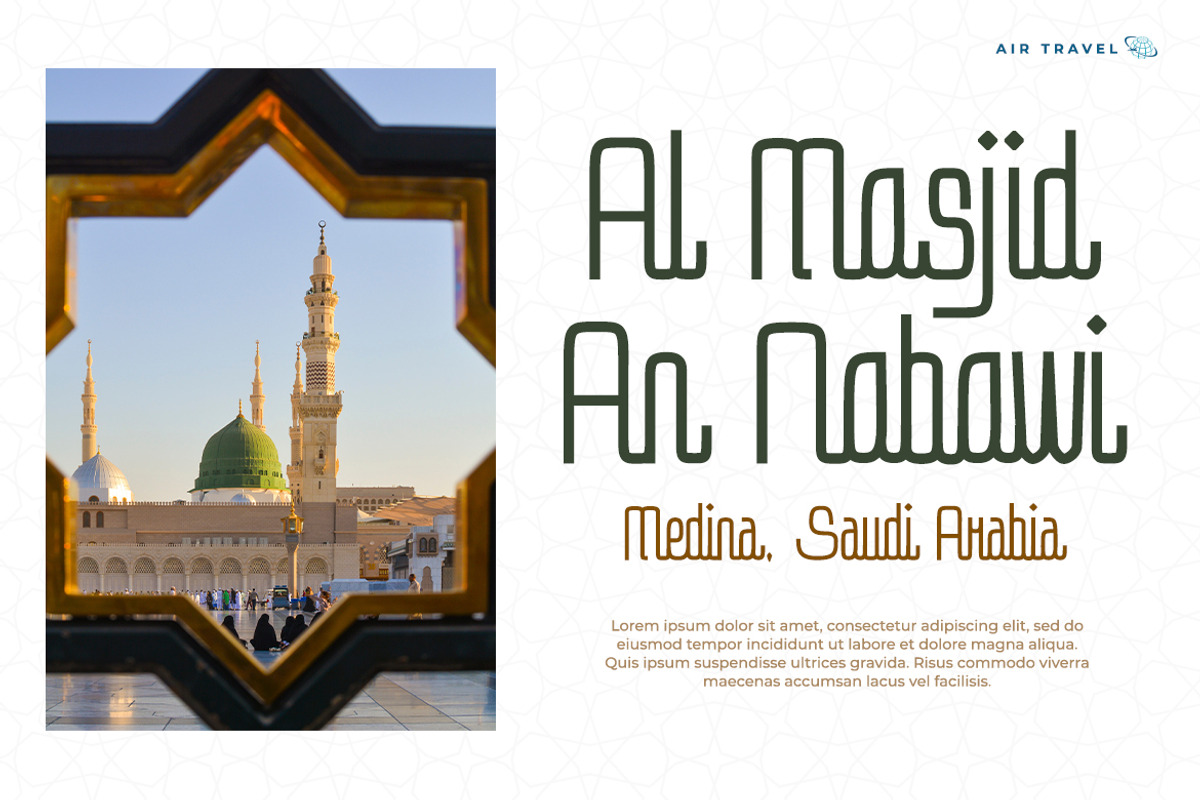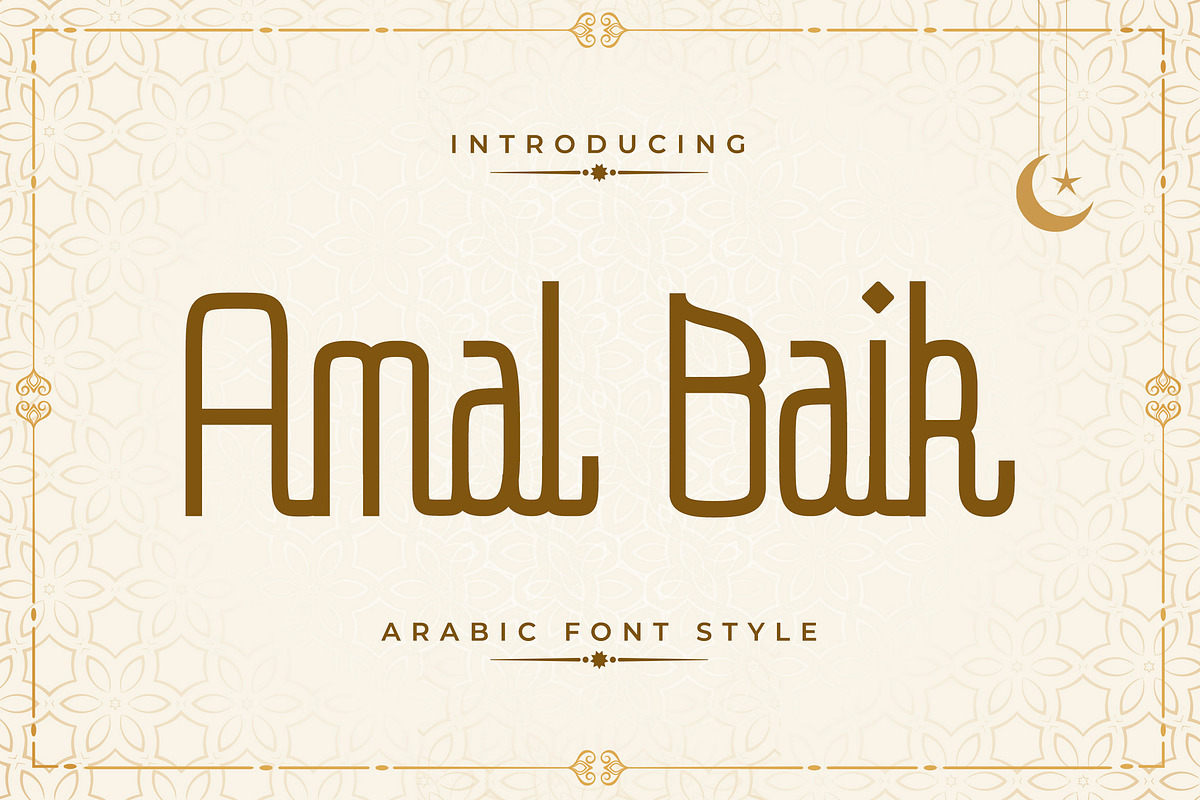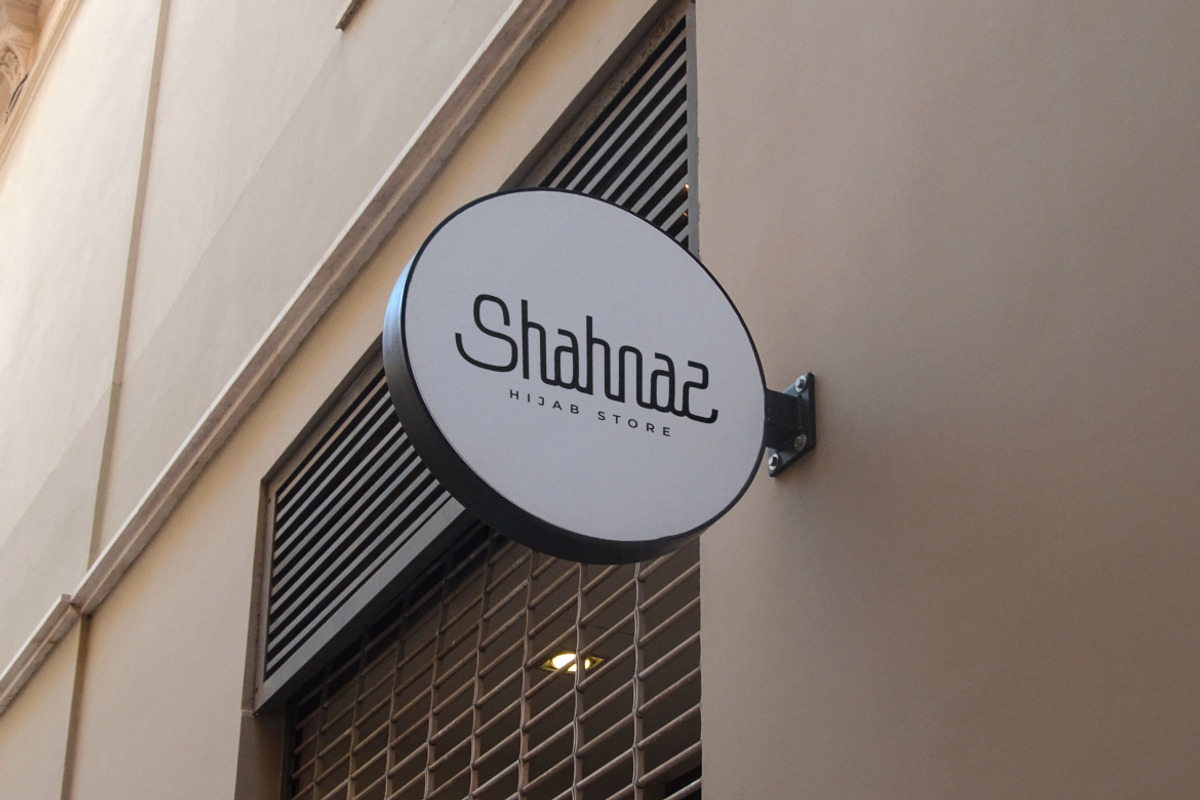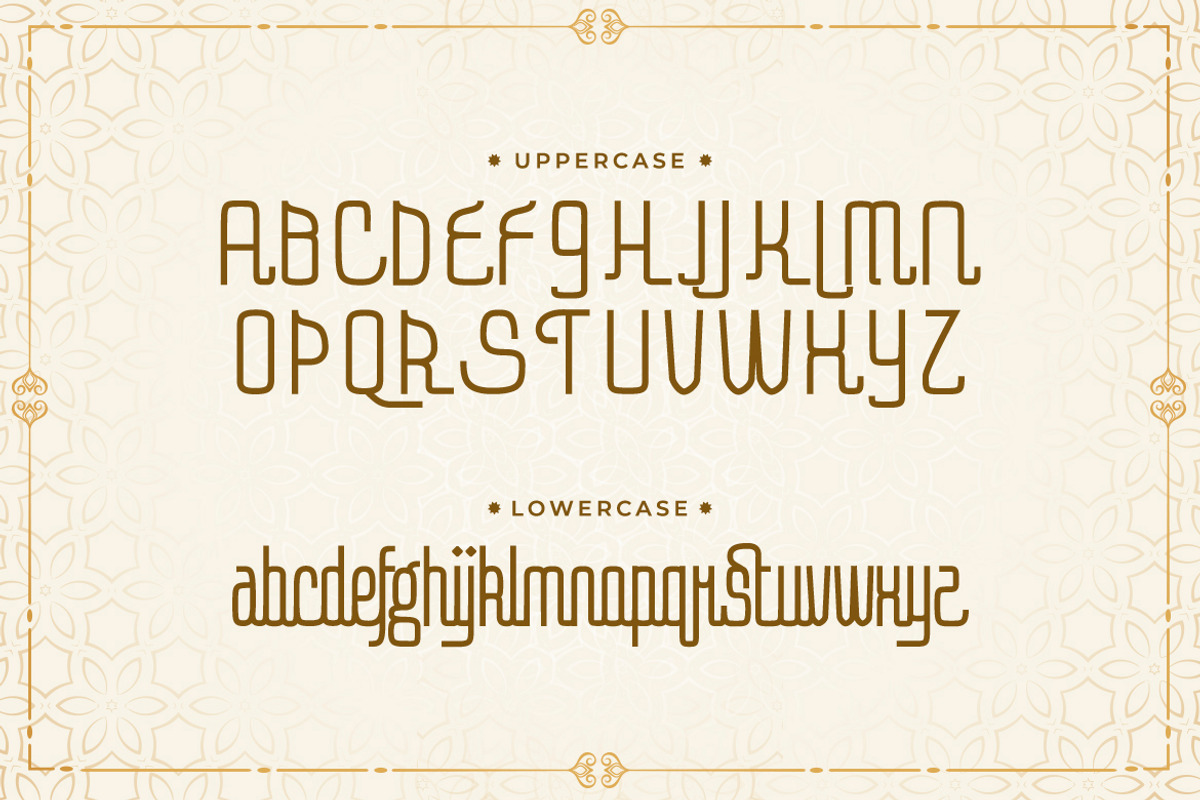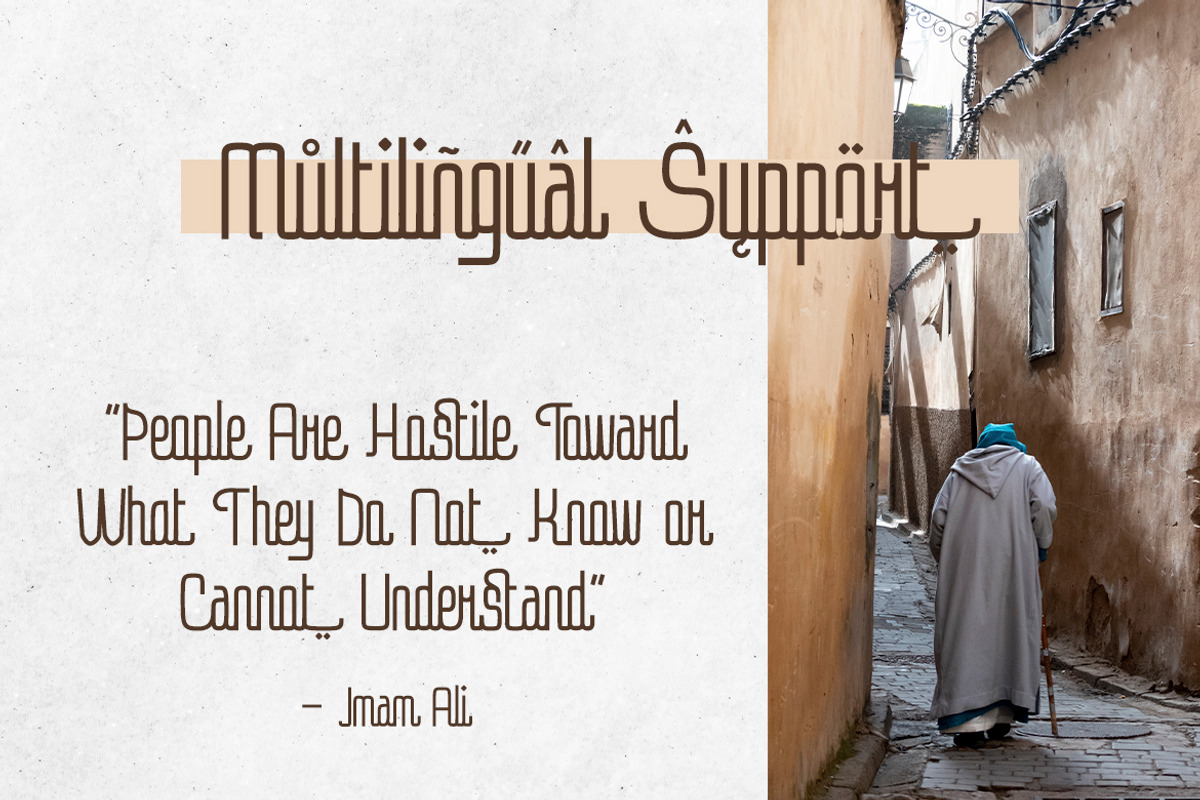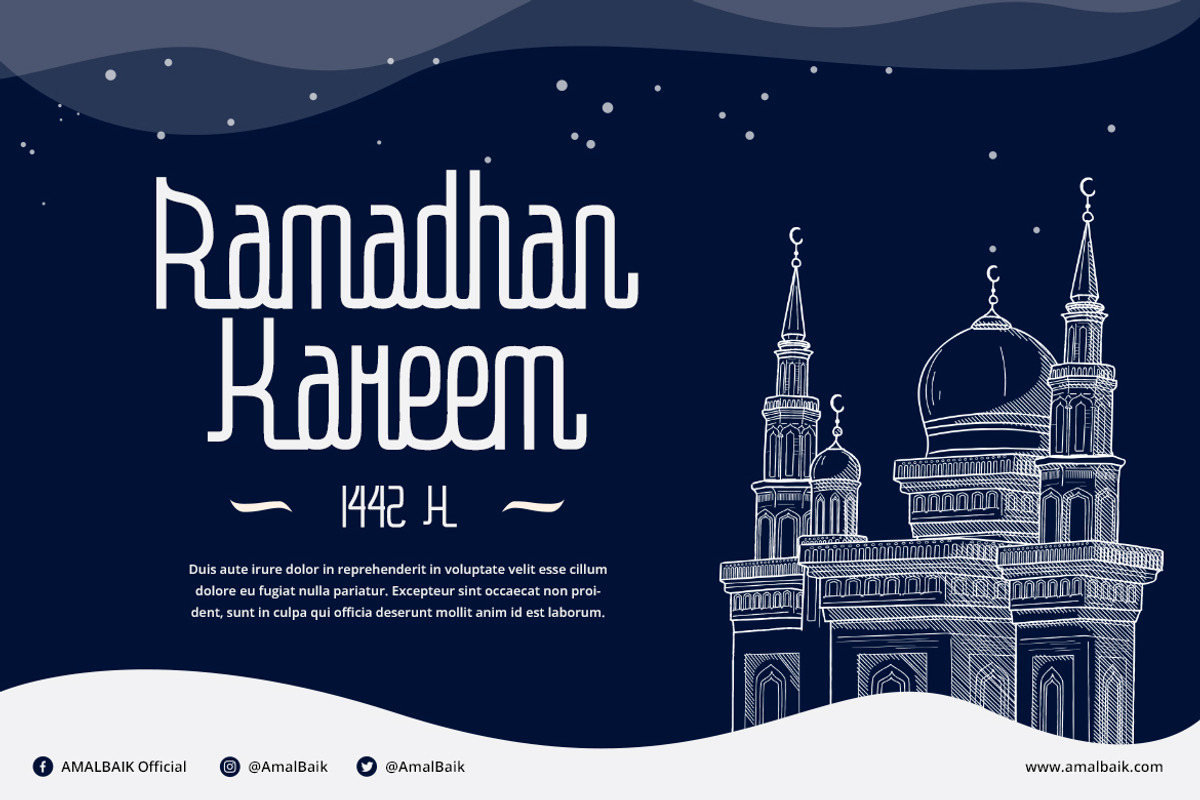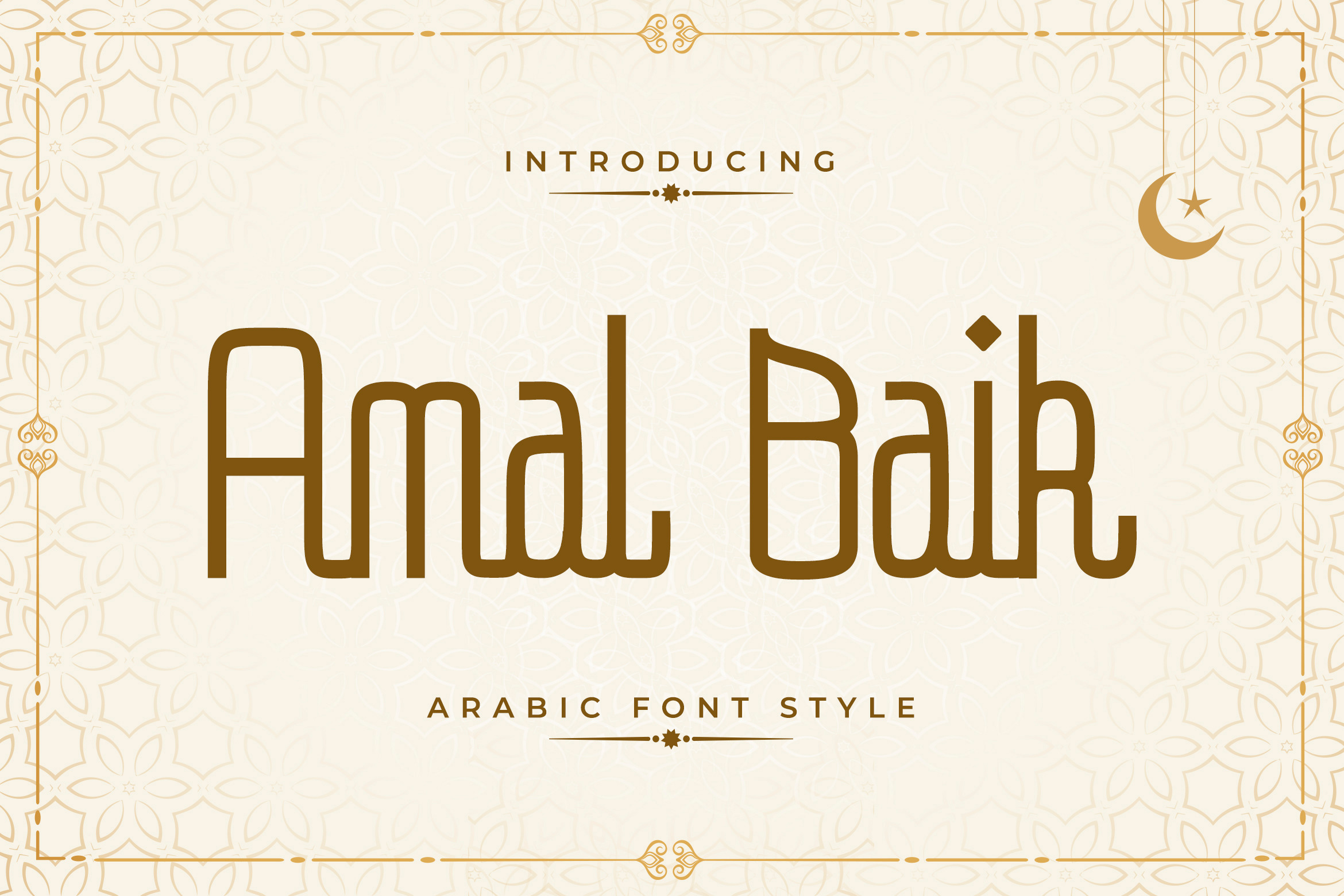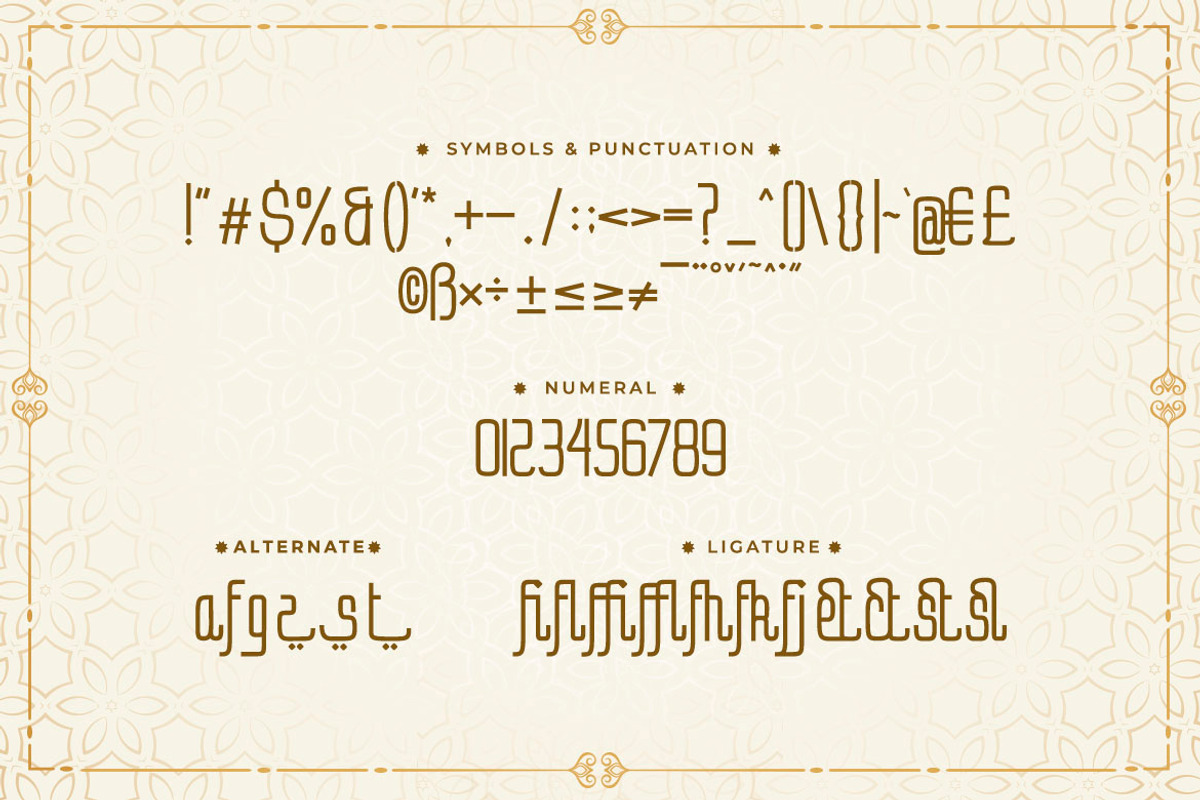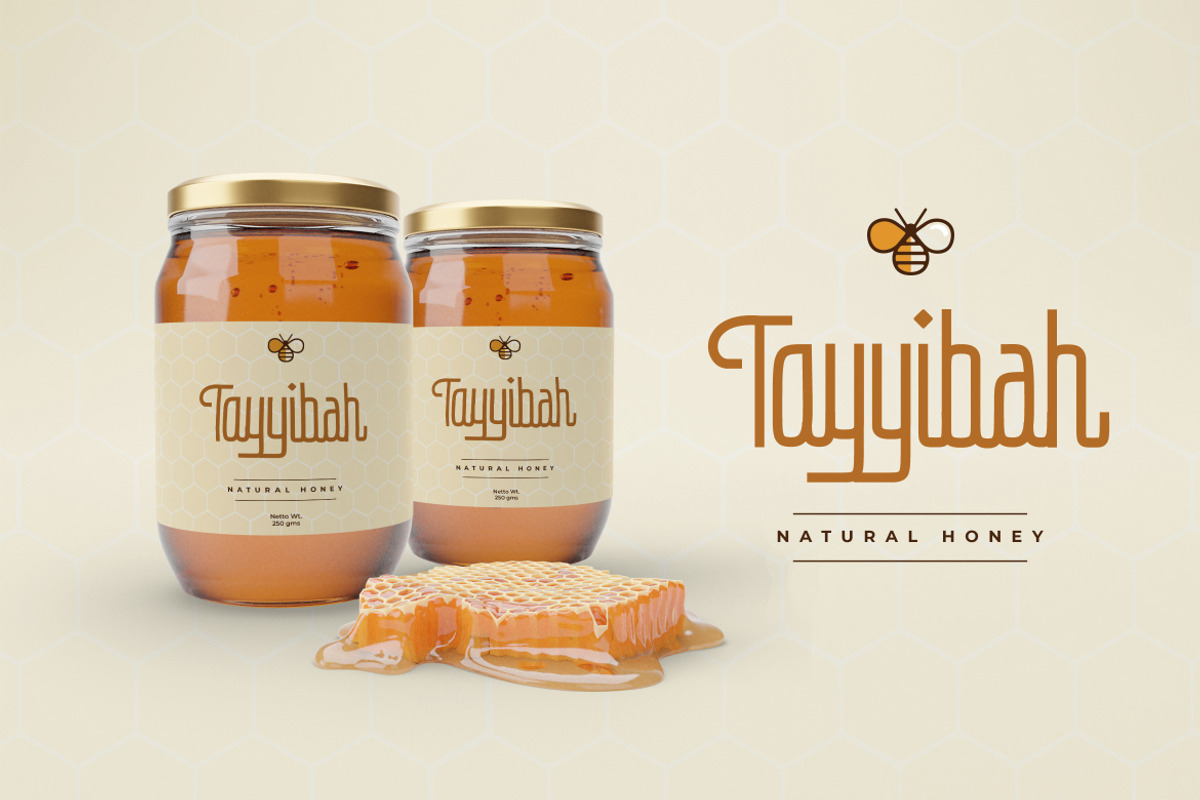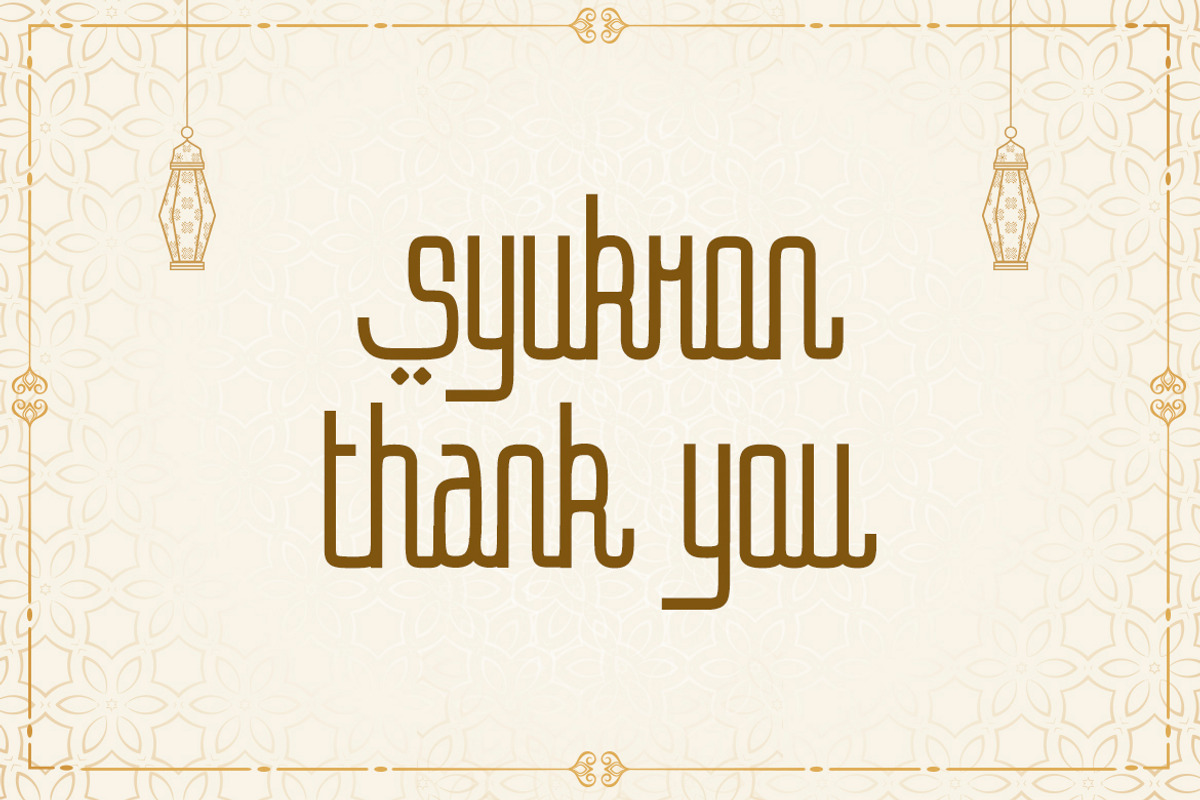
Amal Baik - Arabic Font Style
Amal Baik is an modern display font with an Arabian look. This font particularly for those not native to Arabic languages. Amal Baik try to bring the religious feel to your design or typography. The font suits creative titling on both web and print, perfect for scroll text. Well balanced letters make for readable blocks of copy or headings.
- Symbols & Punctuation
- Numeral